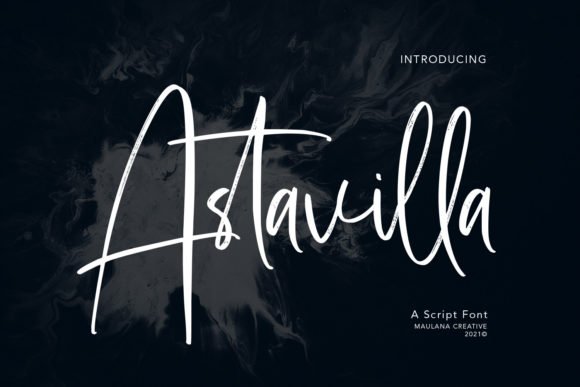
Unleash Your Creativity with Astavilla Script Font
Have you ever stared at a blank canvas, searching for the perfect font to bring your design to life? The struggle is real, but fear not – we’ve got just the thing to spark your creativity. Sometimes, all it takes is a single font to elevate your design from meh to mesmerizing.
Enter Astavilla Script Font, a beautiful and adaptable script font crafted specifically for designers who crave a fresh and refreshing look. Whether you’re working on a branding project, a wedding invitation, or a social media campaign, Astavilla Script Font is the perfect companion to help you create stunning visuals.
What sets Astavilla Script Font apart is its ability to adapt to any design style, making it a valuable addition to any designer’s toolkit. With its relaxed and elegant feel, you’ll be able to create designs that exude sophistication and charm. So why settle for an ordinary font when you can have a script font that’s truly extraordinary?
Astavilla Script Font Key Features
- Font Family: Astavilla Script Font
- Unique Characteristics: Hand-drawn script with elegant and refined feel, ideal for titles, invitations, and other creative applications
Astavilla Script Font Review
I recently had the chance to work with the Astavilla Script font, and I must say it’s a mixed bag. ✨ On the positive side, the font has a beautiful, elegant feel to it. The curves are smooth, and the letterforms are well-balanced. It’s perfect for creating a luxurious or vintage-inspired look.
Here are some specific things that work well:
- ✨ Elegant feel: The Astavilla Script font is perfect for creating a sophisticated and refined look.
- ✨ Smooth curves: The font’s curves are smooth and flowing, making it a joy to read.
- ✨ Versatile: The font can be used for a variety of projects, from wedding invitations to branding materials.
- ⚠️ Limited legibility: At smaller font sizes, the Astavilla Script font can be difficult to read, especially for those with vision impairments.
- ⚠️ Limited character set: The font only includes a basic character set, which may not be suitable for projects that require a wide range of characters.
Overall, I would say that the Astavilla Script font is a solid choice for projects that require a elegant and sophisticated look. However, it’s not the best choice for projects that require high legibility or a wide range of characters.
Astavilla Script is ideal for:
1. Creating elegant and sophisticated headings and titles.
2. Adding a touch of elegance to wedding invitations and event materials.
3. Designing beautiful and creative quotes and sayings.
Alternatives to Astavilla Script Font
Ostrich Sans is a modern script font that combines elegance and sophistication. It is ideal for use in wedding invitations, event branding, and high-end marketing materials. Ostrich Sans is similar to Astavilla Script Font in its flowing, handwritten feel, but it has a more refined and polished appearance.
Carolyna Pro is a luxurious script font that exudes sophistication and glamour. It is perfect for use in high-end branding, luxury packaging, and special occasion invitations. Compared to Astavilla Script Font, Carolyna Pro has a more dramatic and elaborate feel, making it suitable for more formal and elegant designs.
Great Vibes is a lively and energetic script font that is perfect for use in creative and playful designs. It is ideal for use in social media graphics, advertising materials, and youthful branding. Compared to Astavilla Script Font, Great Vibes has a more casual and carefree feel, making it suitable for more relaxed and informal designs.
Q: What is the recommended font size for the Astavilla Script Font?
The recommended font size for the Astavilla Script Font is between 12-24 points, depending on the design and intended use. However, you can adjust the font size to suit your specific needs and design style.